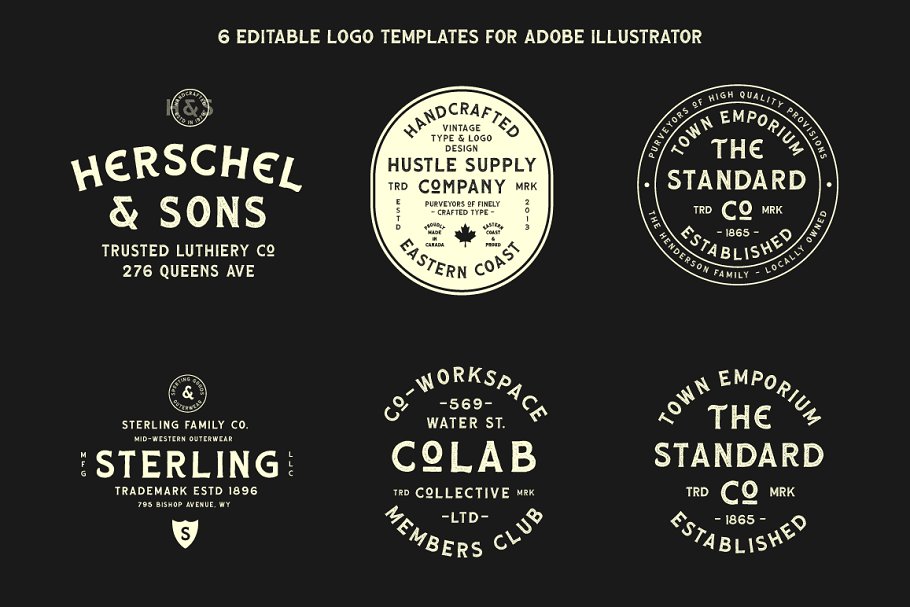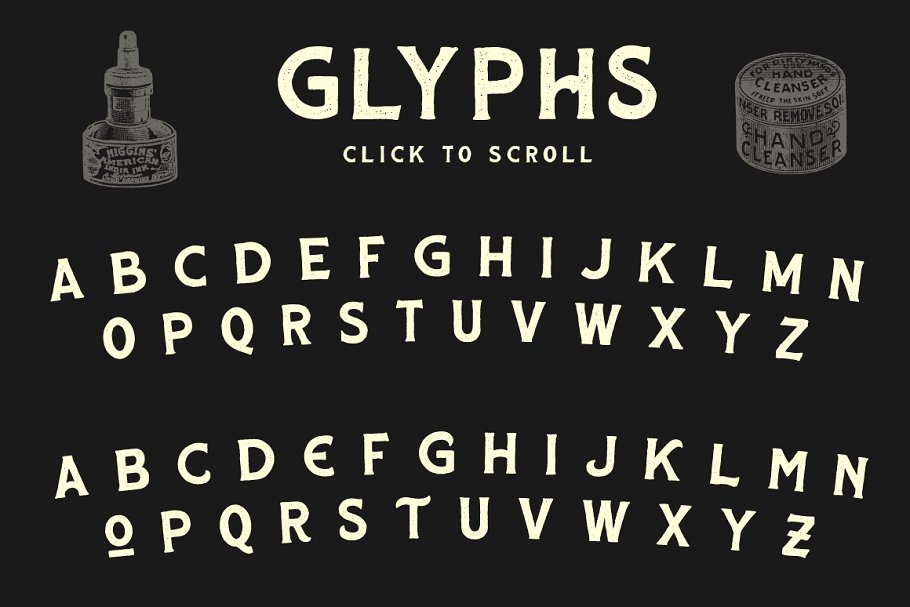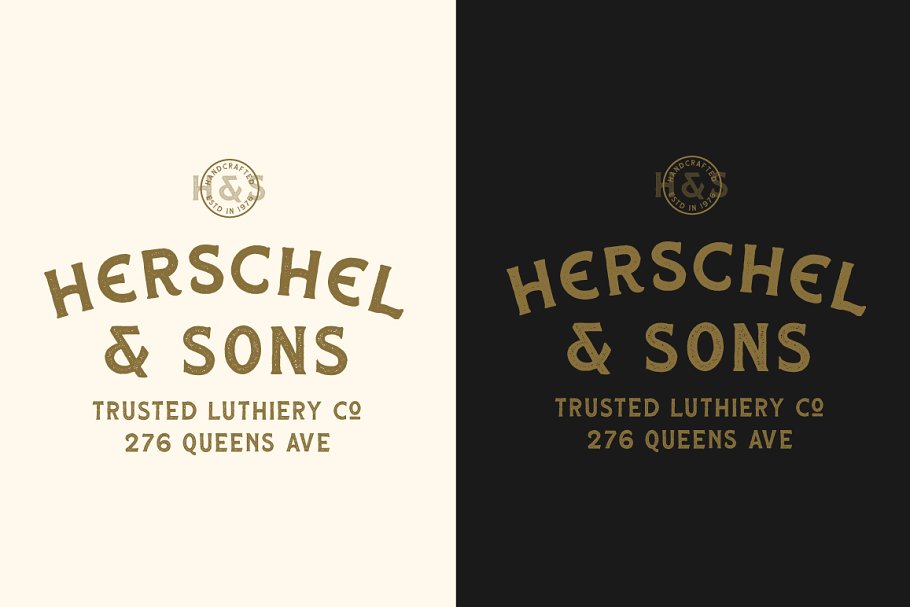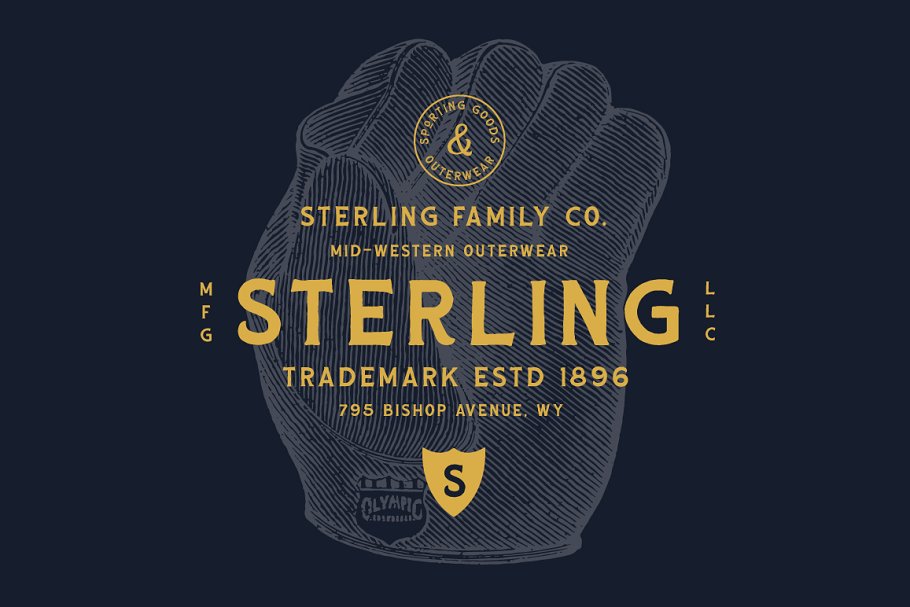
About the HUSCON A Vintage Spur Serif Font
HUSCONIntroducing a Vintage Spur Serif typeface family, Huscon includes 5 font files, Use the Type Tester below to check out the unique differences between each of the fonts, Huscon is a great typeface for achieving an authentic vintage aesthetic as seen in the display images, Not only does HUSCON come with 5 Font Files, it also includes 6 Logo Templates